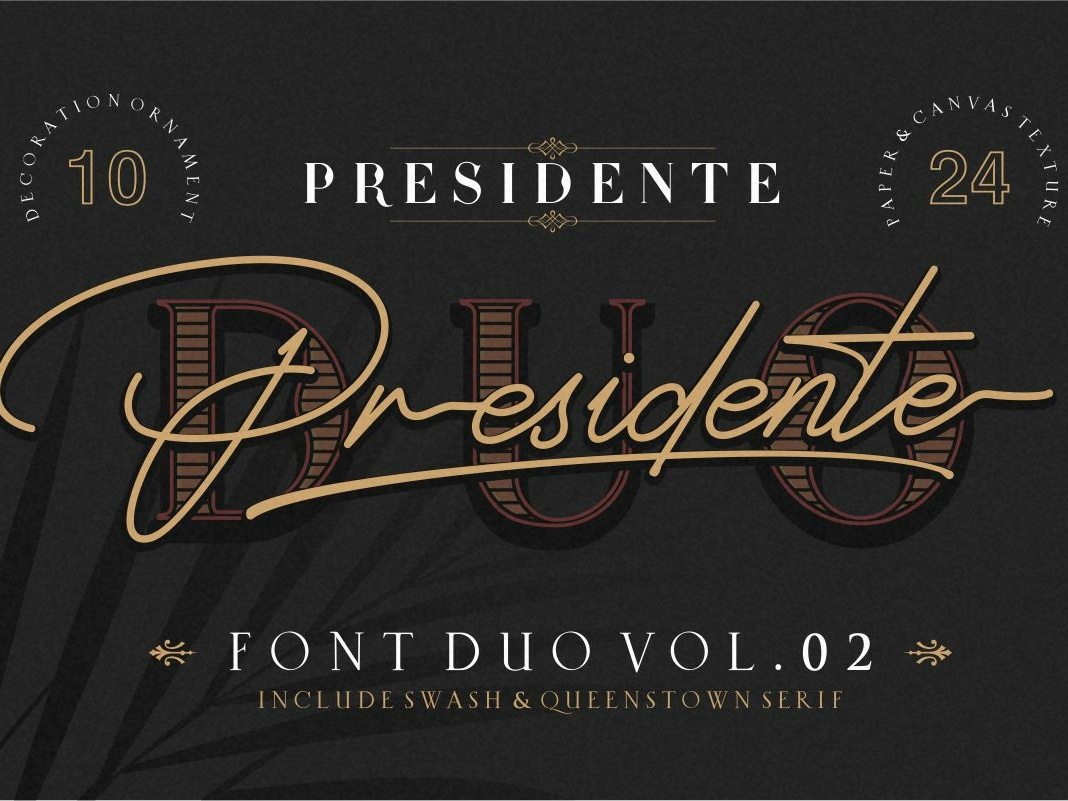
Presidente Font Duo vol.02
Presidente is a Font Duo serif and elegant signature script that are very beautiful,luxurious,elegant and high class for logo font.
This font is perfect for making fashion branding logos,book title,logo photography,watermark photography, social media, wedding invitations, taglines, headlines, and of course signatures.